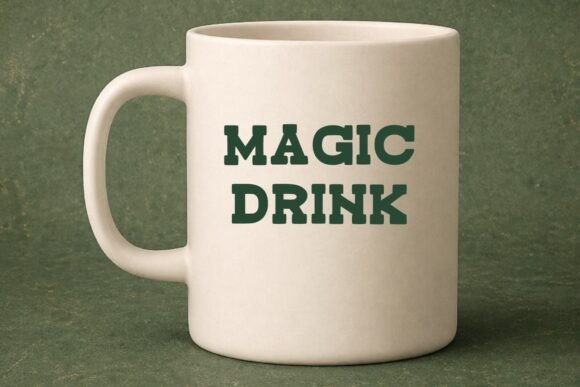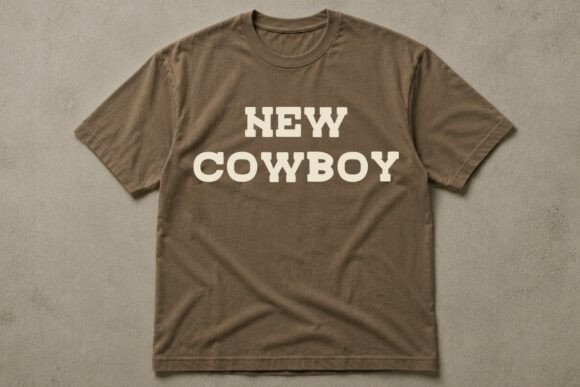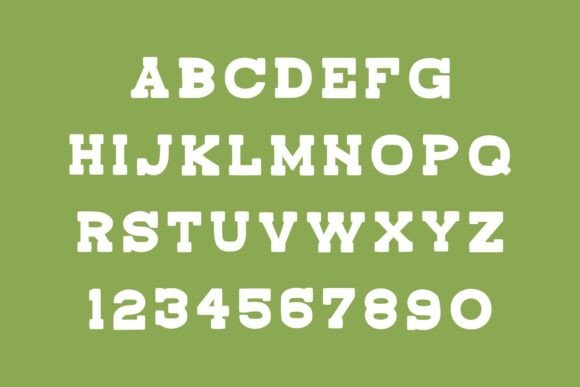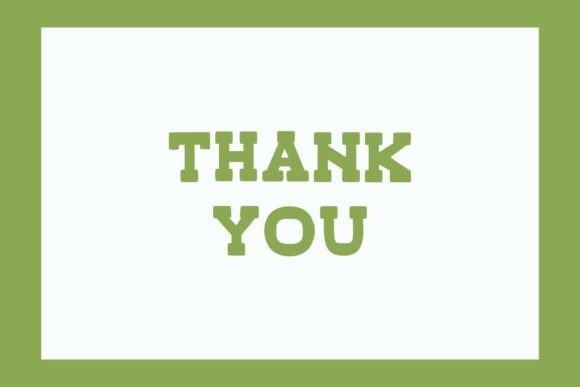
Discover the Timeless Charm of American Retro Font
Are you looking for a font that embodies the spirit of classic Americana typography, retro signage, and old western style lettering? Look no further than the American Retro Font. This bold western vintage font is inspired by the nostalgia of a bygone era, and its strong slab-serif characters and eye-catching retro look make it perfect for a wide range of design projects.
What is American Retro Font?
American Retro Font is a carefully crafted font that draws inspiration from the rich typographic heritage of the American West. Its unique blend of bold, slab-serif characters and vintage flair makes it an instant attention-grabber. Whether you’re designing a logo, poster, or t-shirt, this font is sure to add a touch of timeless charm to your project.
Key Features of American Retro Font
- Bold Slab-Serif Characters: American Retro Font features strong, sturdy characters that exude confidence and ruggedness.
- Eye-Catching Retro Look: The font’s vintage-inspired design makes it perfect for creating designs that stand out from the crowd.
- Timeless Western and Collegiate Feel: American Retro Font delivers a classic, nostalgic feel that’s perfect for sports themes, vintage-inspired creative projects, and more.
- Versatile Design: This font is perfect for a wide range of design projects, including logos, posters, branding, t-shirt designs, packaging, labels, and more.
American Retro Font is a versatile design asset that’s perfect for designers and crafters looking to add a touch of classic Americana to their projects. Whether you’re creating a logo for a sports team, designing a vintage-inspired poster, or crafting a unique label, this font is sure to deliver.
Ideas for Using American Retro Font
- Logos and Branding: Use American Retro Font to create a bold, eye-catching logo that embodies the spirit of classic Americana.
- Posters and Flyers: Add a touch of vintage flair to your posters and flyers with this unique font.
- T-Shirt Designs: Create unique, eye-catching t-shirt designs with American Retro Font.
- Packaging and Labels: Use this font to add a touch of classic charm to your packaging and labels.
- Sports Themes: American Retro Font is perfect for creating sports-themed designs, including jerseys, team logos, and more.
Why Choose American Retro Font?
With so many fonts to choose from, why choose American Retro Font? Here are just a few reasons:
- Unique Design: American Retro Font features a unique blend of bold, slab-serif characters and vintage flair that’s sure to stand out.
- Timeless Appeal: This font’s classic design ensures that it will remain timeless and relevant for years to come.
- Versatility: American Retro Font is perfect for a wide range of design projects, making it a valuable addition to any designer’s toolkit.
American Retro Font is a bold, eye-catching font that’s perfect for designers and crafters looking to add a touch of classic Americana to their projects. With its strong slab-serif characters, eye-catching retro look, and timeless western and collegiate feel, this font is sure to deliver. Whether you’re designing a logo, poster, or t-shirt, American Retro Font is the perfect choice.